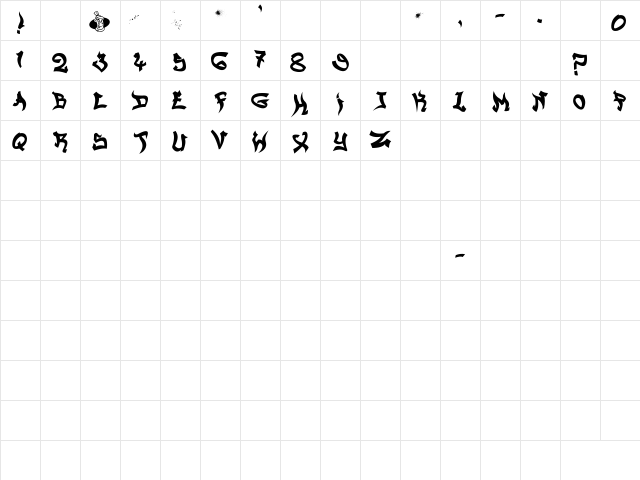
Lower East Side Bold Regular
Designer: IMAGEX
Design Context for Lower East Side Bold
Lower East Side Bold is a composed and adaptable typeface that performs quietly and consistently across a wide range of design contexts. Its bold stroke weight gives it real presence on the page.